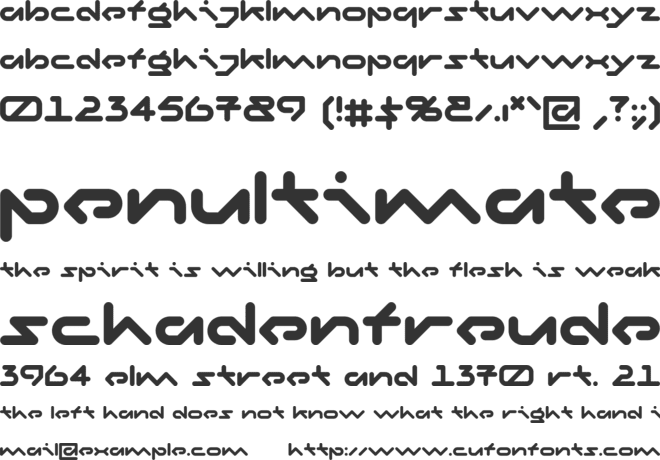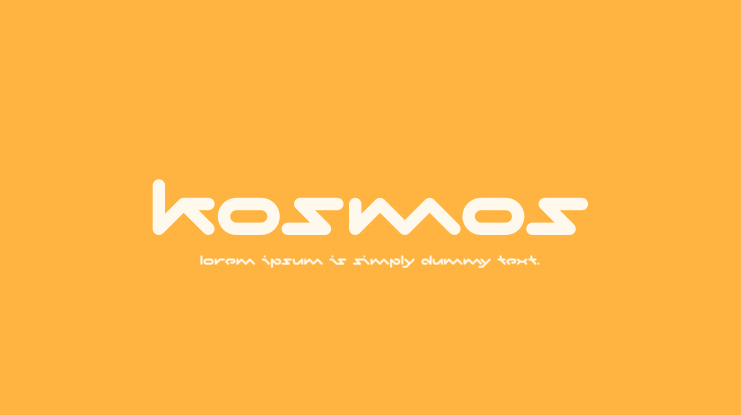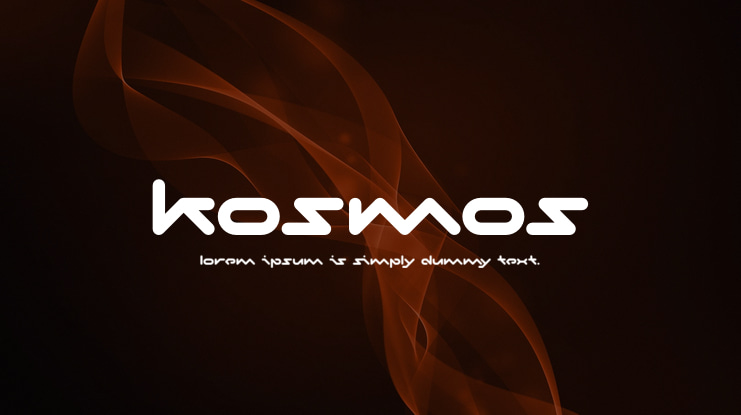
Kosmos Font
This is a free modern display typeface that includes simple latin and cyrillic glyphs. Special used for your projects design like a fashion, business cards, logotype, music projects, architecture and packaging products.